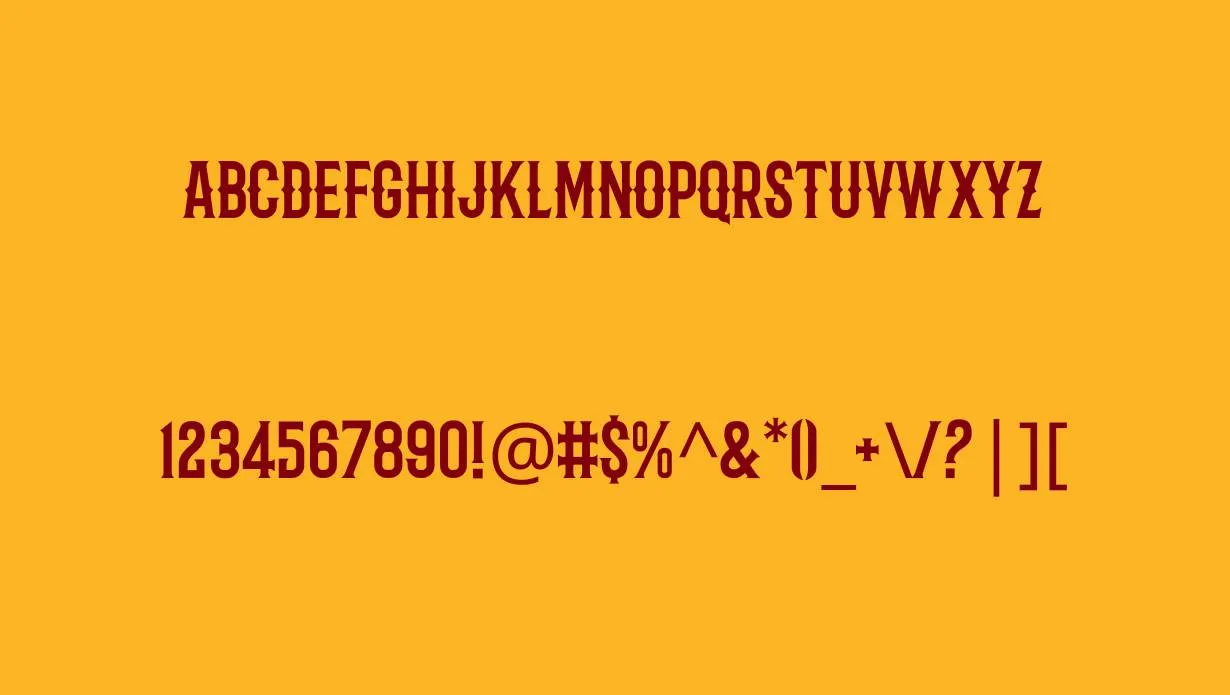
The Barbaro Western font encapsulates the rugged essence of the Wild West, reminiscent of fonts used in classic cowboy movies. Its rustic charm is perfect for creating vintage-inspired posters, signs, or designs evoking that old-time Western feel.